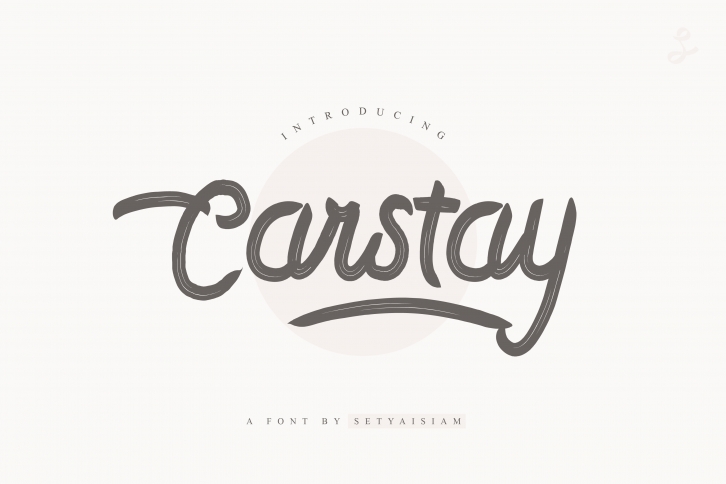
Carstay is a brushed script font that is defined by a delicate touch. This font is perfect for campaign needs, branding, logos, Instagram stories, reels or memes.